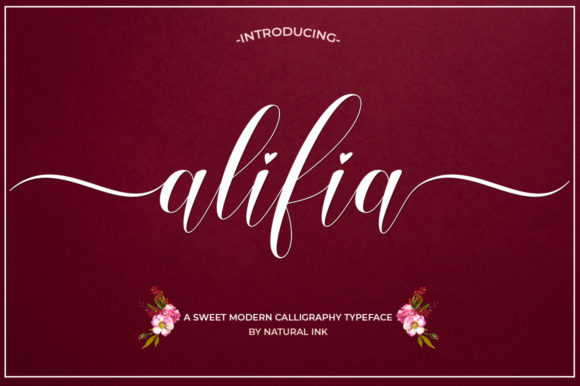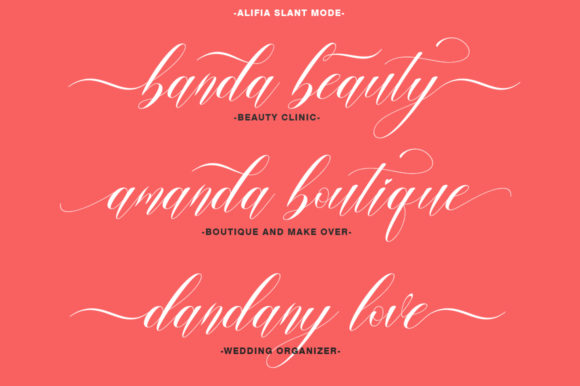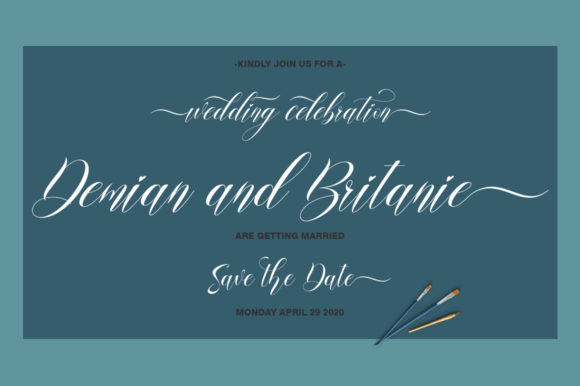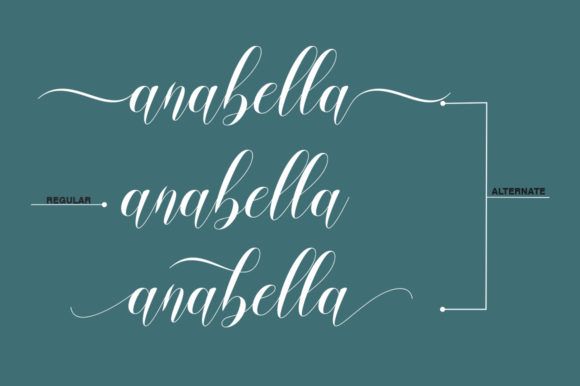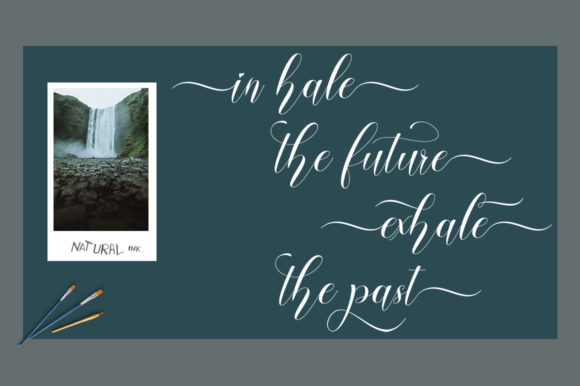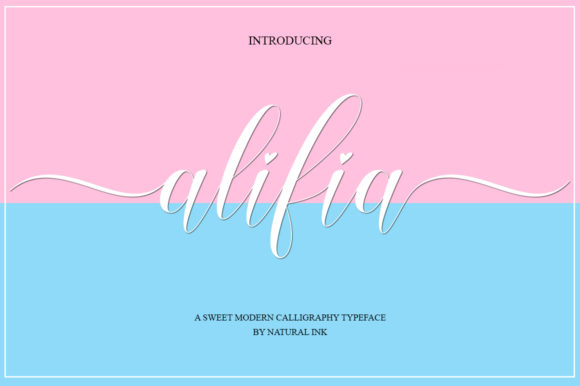
HomeScript FontsAlifia Font Script Fonts Alifia Font FacebookXPinterestWhatsApp Alifia Font Poster 2 Alifia Font Poster 3 Alifia Font Poster 4 Alifia Font Poster 5 Alifia Font Poster 6 About Alifia Font Alifia is a modern calligraphy font that is curvy, casual, and includes many alternate characters with swashes. DOWNLOAD NOW People also explored Moontype Font Mindlove Font Salvada Font Like Snacking Font Monogram Circle Bat Font Kellana Rogena Splash Font Vacation Font Spooky Vintage Font 366 0 TagsAlifia Font Previous articleBeatrix Script FontNext articlePellittora Font LEAVE A REPLY Cancel reply Comment: Please enter your comment! Name:* Please enter your name here Email:* You have entered an incorrect email address! Please enter your email address here Website: Save my name, email, and website in this browser for the next time I comment. Personal Use Free Calling Personal Use Free Read more about this font Cuttering Personal Use Free Read more about this font Street Cred Personal Use Free Read more about this font Bebas Neue Font Personal Use Free Read more about this font BLOG How to Install and Use Fonts on Windows, macOS, and Web Projects How to Install and Use Fonts on Windows, macOS, and Web Projects Fonts are a crucial part of design and branding. Whether you’re designing a... How to Cut Any Font on Cricut: Convert a Font to SVG (Free) Free vs Paid Fonts: Why Investing in Premium Fonts Is Worth It Best Fonts for YouTube Videos: Make Your Thumbnails Stand Out